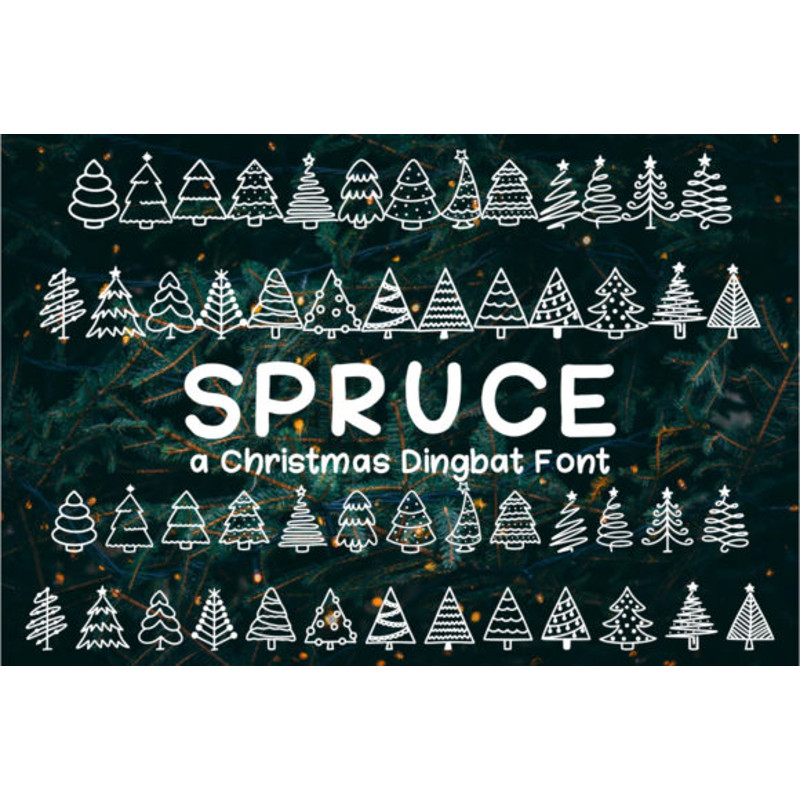
Spruce Font
Spruce is a cool and useful dingbats font. No matter the topic, this font will be an incredible asset to your fonts’ library, as it has the potential to elevate any creation.